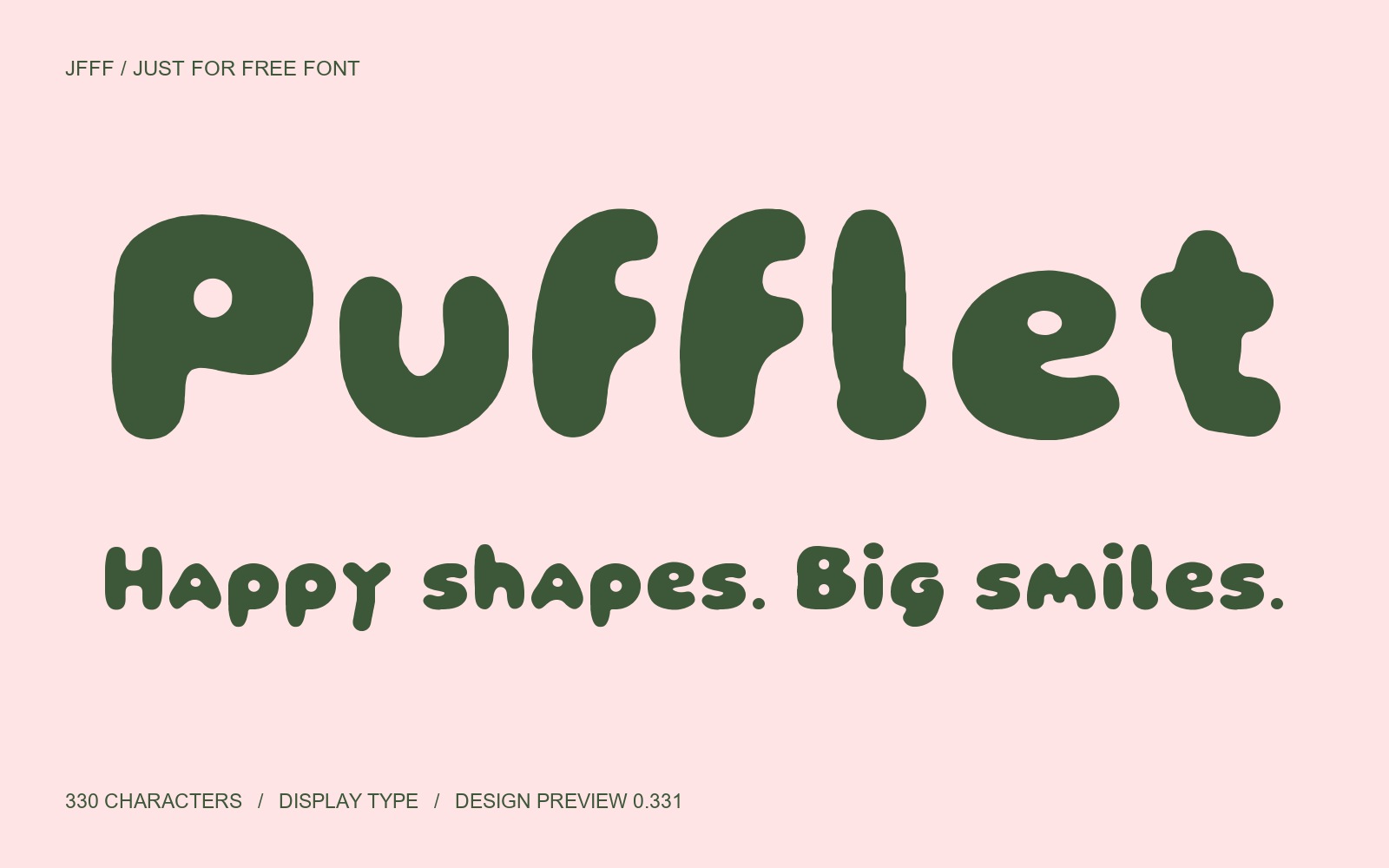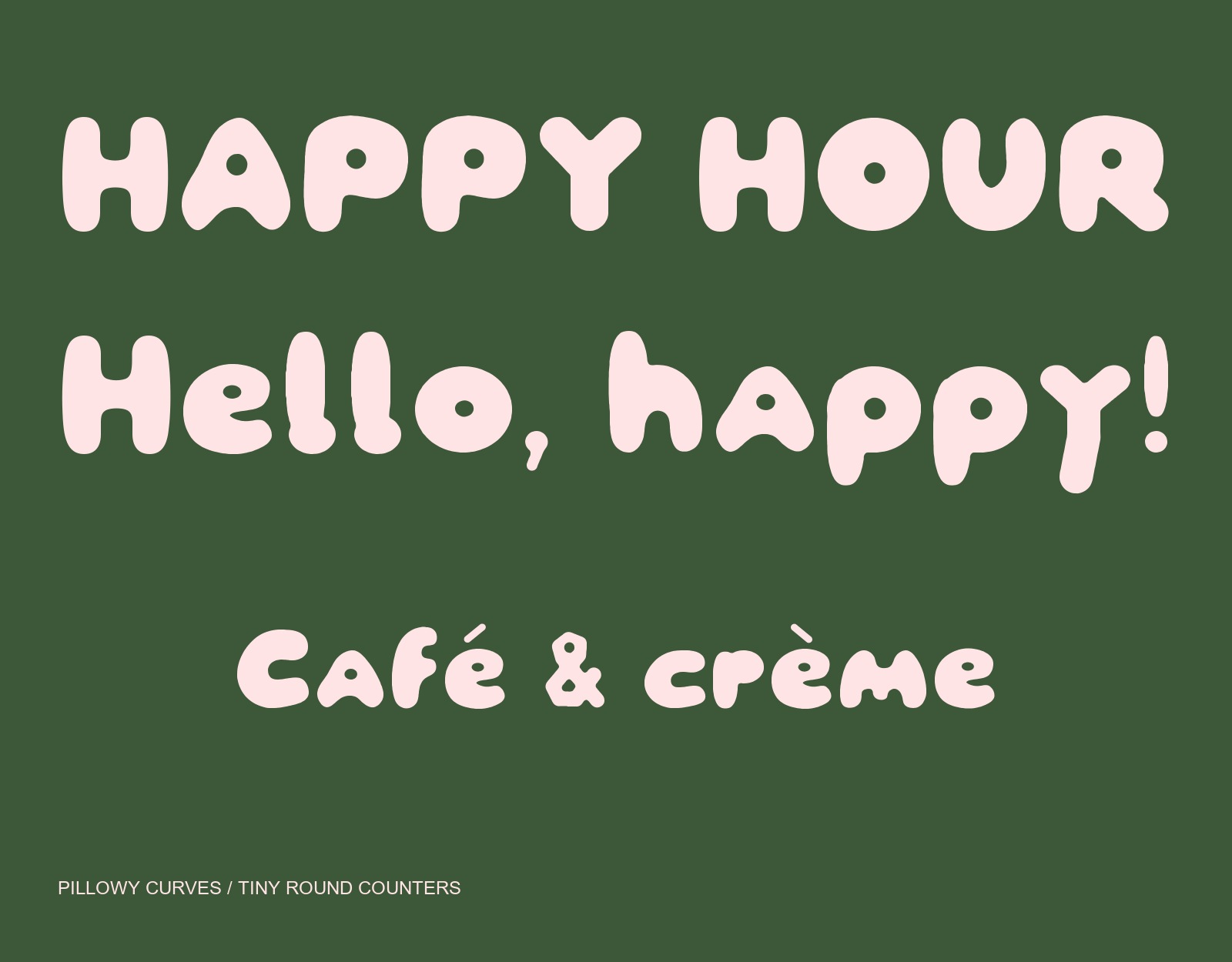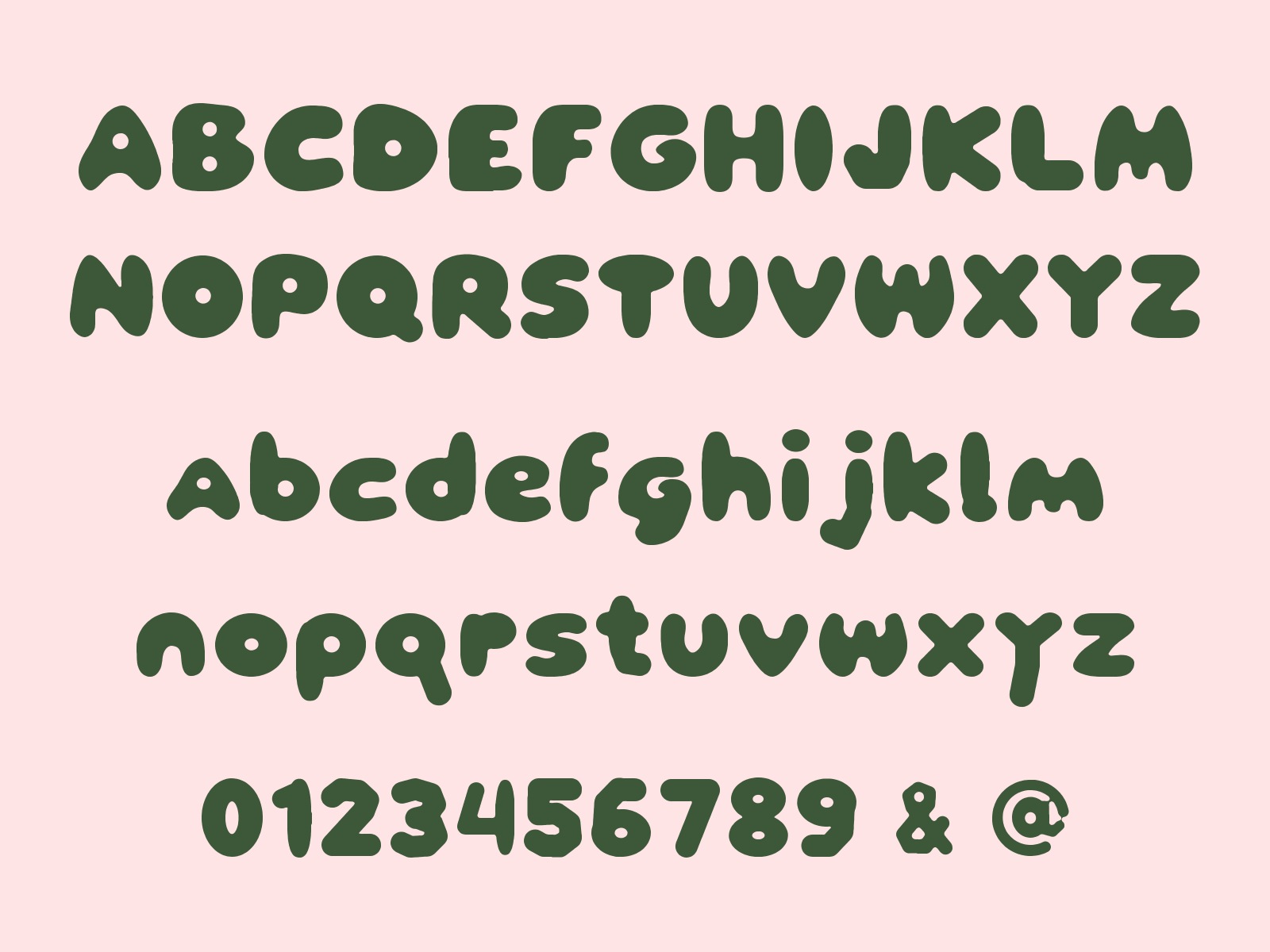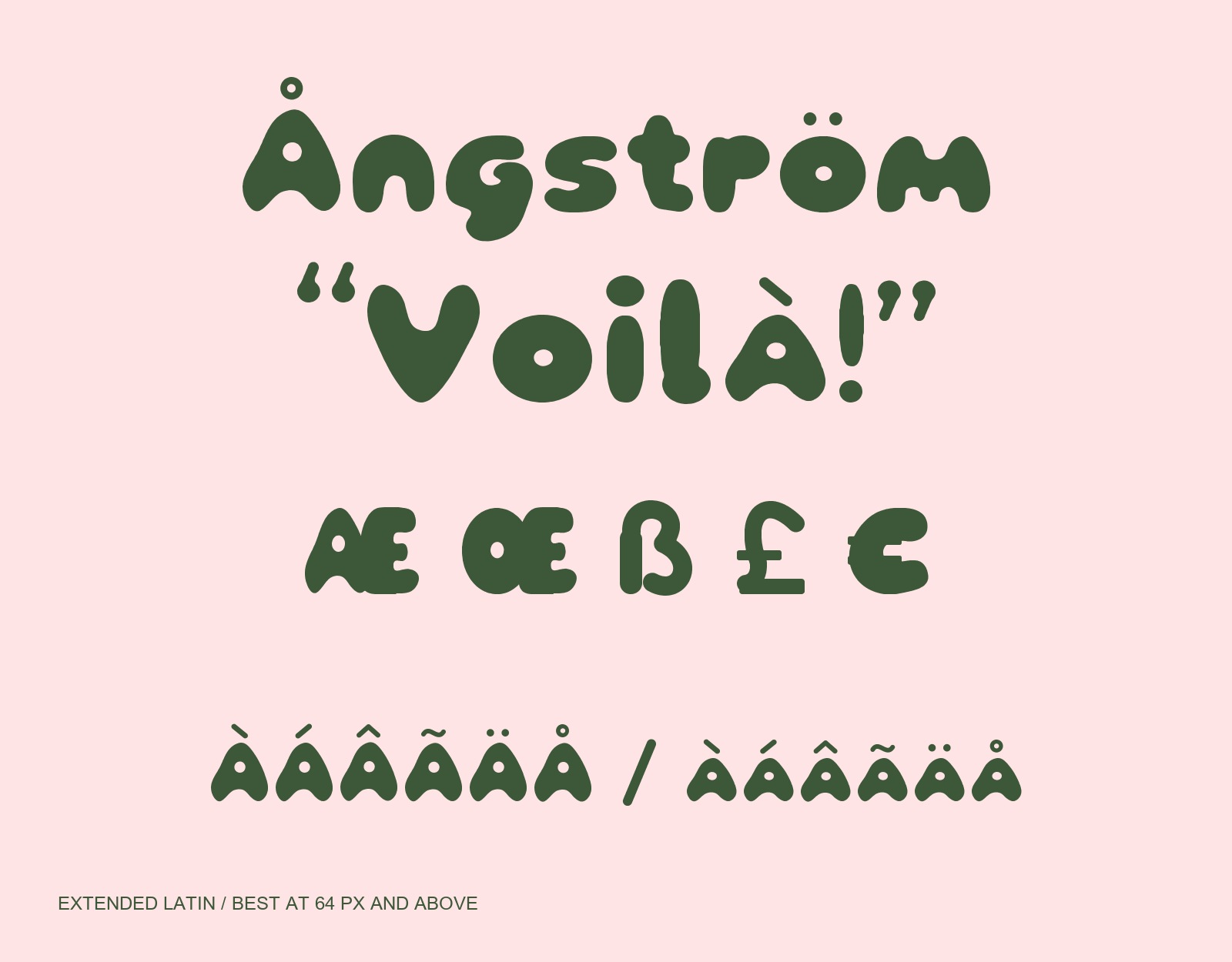
Pufflet is a playful inflated display font with pillowy curves, tiny round counters and balanced H pillars. Includes 330 encoded characters: uppercase, lowercase, figures, punctuation and extended Latin. Design Preview 0.331 is intended for short headlines, posters and playful packaging at 64 px or larger. The download contains a TTF and SIL OFL 1.1 license for free personal and commercial use. Small text, native editing-app installation and language-native editorial checks remain outside the completed review. Use precomposed (NFC) accented text. Specimen colors are illustrative; the font itself is monochrome.